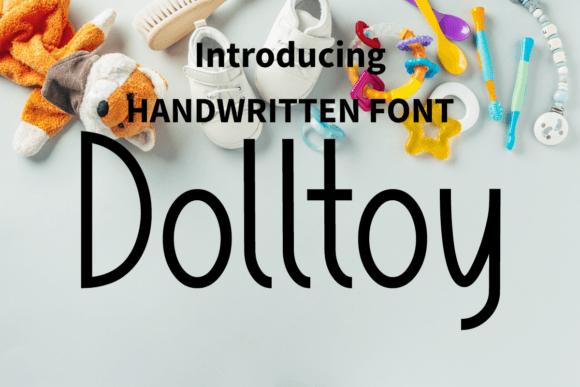
Introduction to Dolltoy Font
Dolltoy is a fun and friendly handwritten font.
Whimsical and a bit quirky, this font will brighten up each of your designs Add it confidently to your projects, and you will love the results.
Key Features of Dolltoy Font
Why Choose Dolltoy Font?
Dolltoy Font offers exceptional quality and versatility, making it a valuable addition to your design toolkit. Whether you’re creating for personal projects or commercial use, Dolltoy Font delivers professional results.